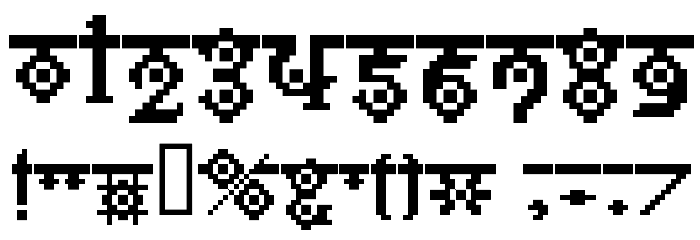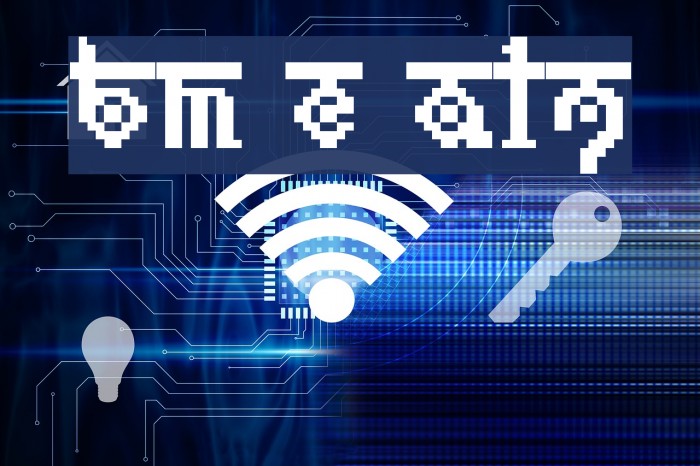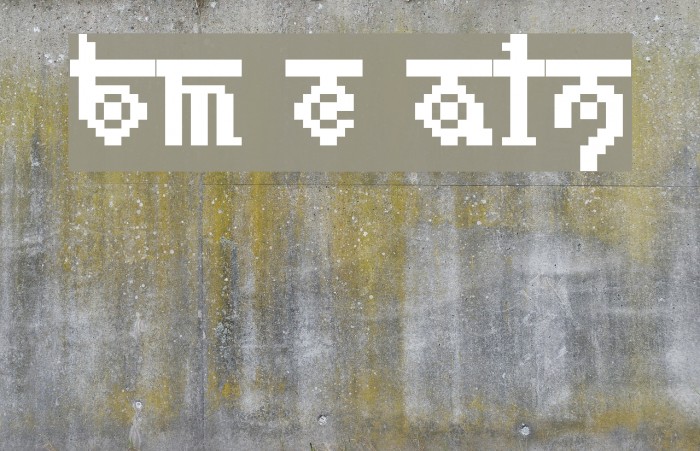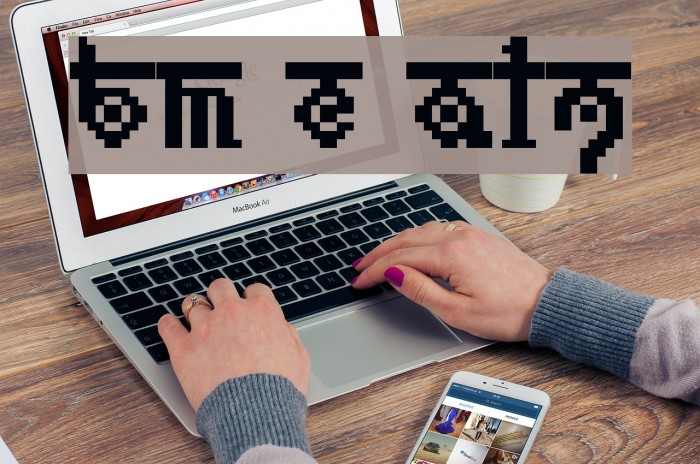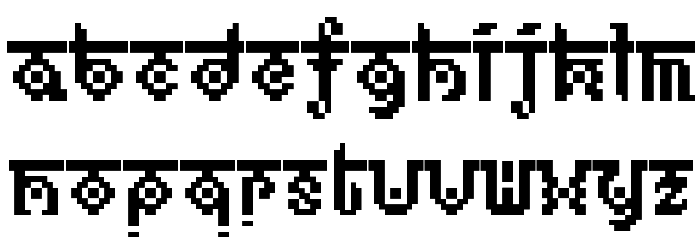
BM ethno A17 Font
BM ethno A17 Description
This font features a bold, pixelated design reminiscent of early digital or video game aesthetics. Each character is constructed with a blocky, geometric style that gives it a distinct, retro appearance. The uppercase and lowercase letters maintain a consistent height, contributing to a uniform look across text. Numbers and special characters are designed with the same pixelated approach, ensuring visual cohesion. The font's unique style makes it stand out, ideal for projects that require a nostalgic or tech-inspired theme.
| Overall Style | Retro, Digital |
| Proposed Projects | Ideal for video game design, retro-themed posters, digital art projects, or any creative work that seeks to evoke a sense of nostalgia for early computing. |